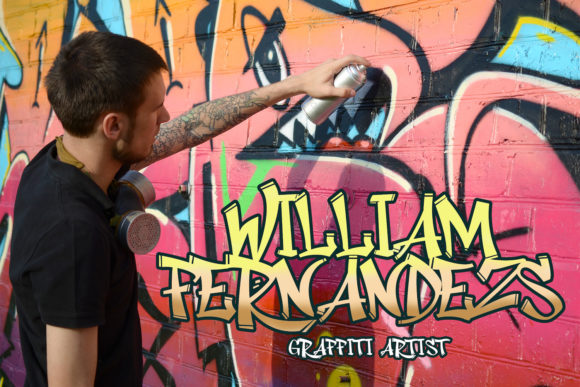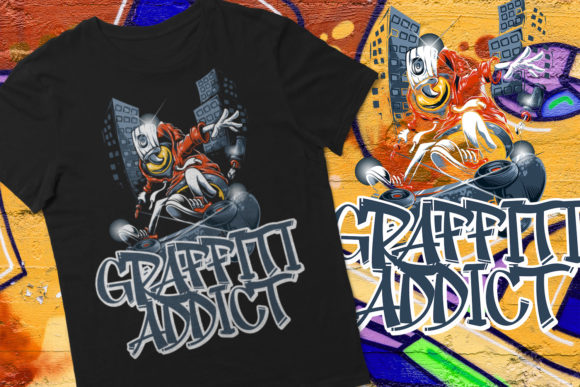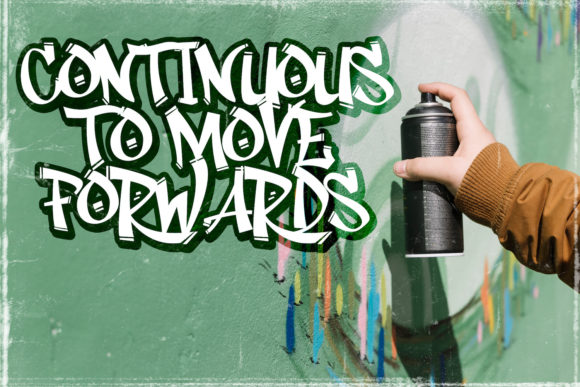
Introduction to Rhieknuza Font
Rhieknuza is an incredibly unique and interesting display font.
Add it to your most creative ideas and notice how it makes them come alive .
Key Features of Rhieknuza Font
Why Choose Rhieknuza Font?
Rhieknuza Font offers exceptional quality and versatility, making it a valuable addition to your design toolkit. Whether you’re creating for personal projects or commercial use, Rhieknuza Font delivers professional results.